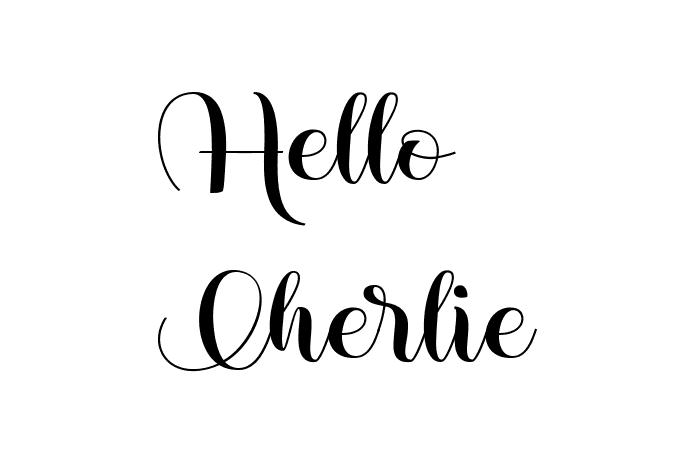
Moviecal Font
Moviecal Font is perfect for any titles, logo, product packaging, branding project, magazine, social media, wedding, or just used to express words above the background. Moviecal also comes with Multi-Lingual Support.
Font designer Allouse.Studio
Font Family Moviecal
Typeface classification Brush,Script